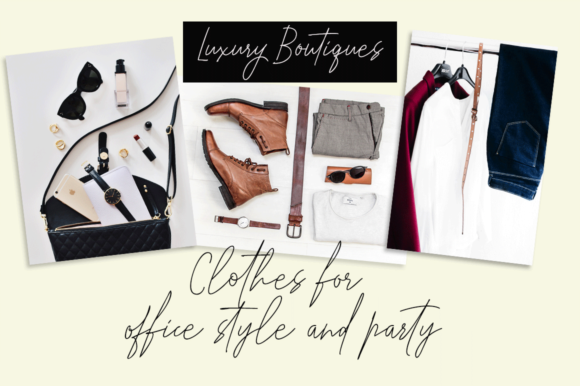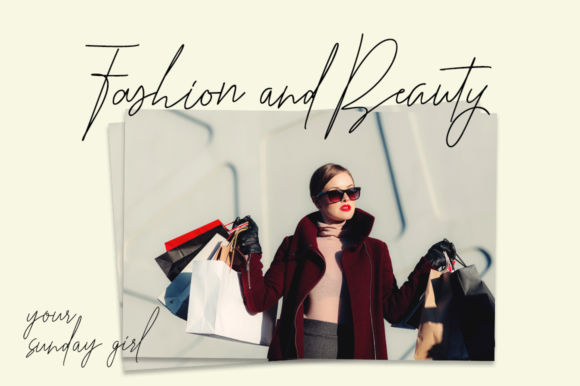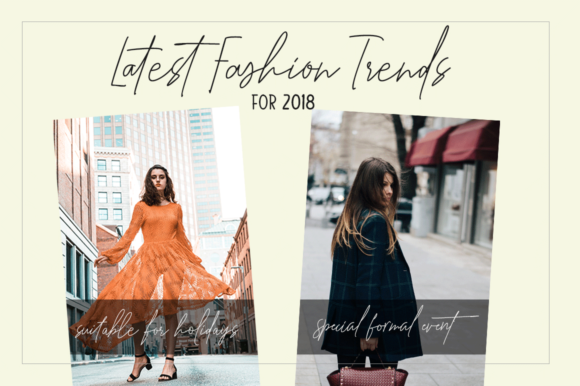
Elegantly & Modest Duo Font
About Elegantly & Modest Duo Font
The Elegantly & Modest is a beautiful font duo. it has a handwritten vibe which will add a natural touch to your designs.